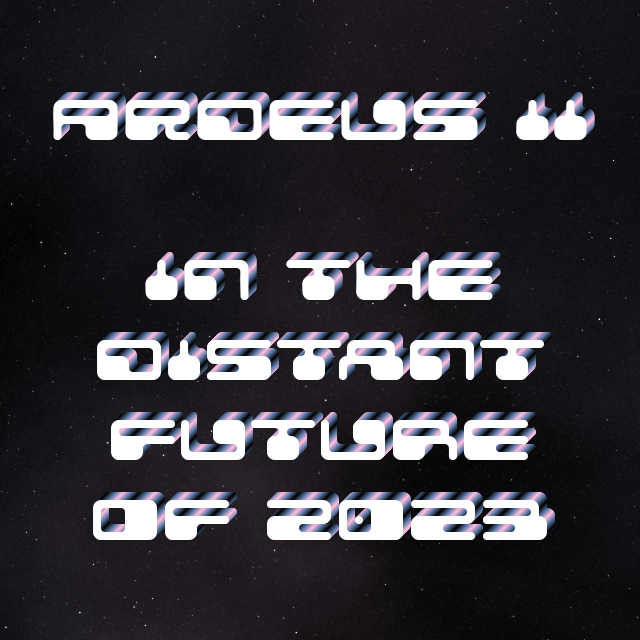
Yup, this is exactly the sort of work I would expect from you, very original looking and well crafted Sci-fi/Data style.. Taking your complete catalog of FS contributions it is clear that you've developed an exceptional feeling for experimenting with these kind of designs..
I absolutely admire this whole Sci-fi/Data aesthetics, and since I got into FS-ing, I've occasionally seeing this style roling down the FS-Live feed every once in a while, building on that urge of one day crafting something similar myself.
Numerous attempts have since followed, but I find myself feeling way out of my comfort zone when I try, and keep running into that sad realization of that it perhaps might not be the project for me in the end.
When play around with this style, the intuitive creative vision that generally comes along with doing my other bread and butter work now for some reason remains absent .
That illusive sort of unexplainable deeper feeling that tells you if some undertaking is legit or not, the thing that elevates a piece of work from 'tryhard zombie'-art with no personality or soul into being something that is genuine. When you know that your 'inner'-basal ganglia assistance subconsciously going to kick into extra gear to start flooding the brain's hippocampus with all these different new forms and arrays of fresh ideas that help a project to get going. Something I usually experiencing with materials that are more up my alley.
But geeez, yeah that was a whole lotta bulk just to say;
"Cool Sci-fi/Data style font, 10/10"
Guess the frusteration had to pop at some point ?
@Yautja: Nice to see you here again, compa, and Happy Neew Year! 10/10 for the font. I like this one more than Ardeus, the retro style of the sample works very well on it.